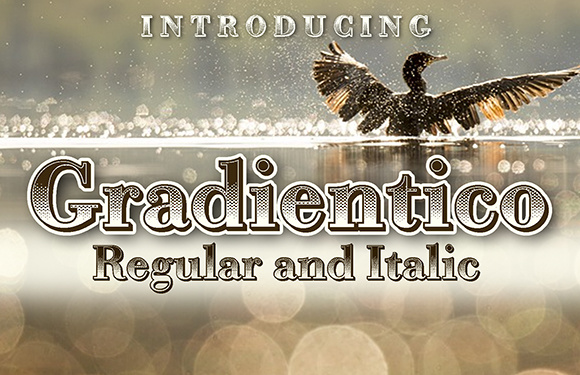
Gradientico Font
Dive into the realm of retro allure with Gradientico, a serif font that exudes vintage charm. Its graceful curves and elegant lines evoke a bygone era, adding a touch of nostalgia to your designs.
Crafted with precision by the skilled hand of vladimirnikolic, Gradientico comes in two distinct styles: Regular and Italic. The Regular variant exudes a timeless sophistication, while the Italic version adds a touch of fluidity and movement to your creations.
Whether you're crafting eye-catching banners, captivating posters, or bold headlines, Gradientico's versatility knows no bounds. Its retro aesthetic lends itself to a multitude of design styles, from classic to contemporary.
Embrace the allure of bygone days with Gradientico. Its ability to evoke nostalgia and create a sense of connection is unparalleled. Let its graceful lines and elegant curves transport your designs to a realm of vintage elegance.
Indulge in the allure of Gradientico today, and let its retro charm captivate your audience.